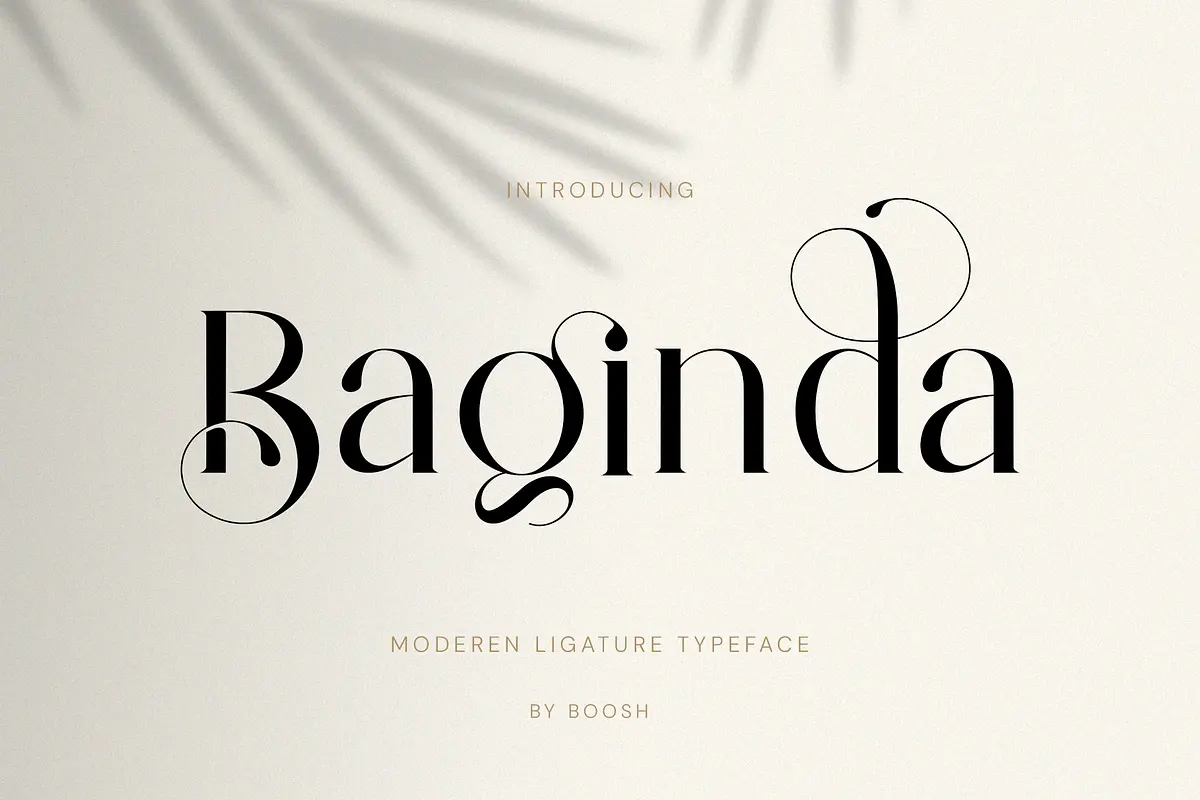
Baginda - Modern Ligature Typeface Free Download
Baginda - Modern Ligature Typeface Free Download is a sleek and stylish font that combines modern design elements with unique ligatures to create a dynamic and sophisticated look. Its fluid letterforms and artistic connection between characters make it perfect for high-end branding, logos, wedding invitations, fashion designs, and elegant marketing materials.
The ligature details add a creative and refined touch, making it ideal for projects that require a blend of readability and artistic flair. Whether you're working on an upscale logo, editorial design, or any creative branding project, Baginda brings both elegance and modernity.